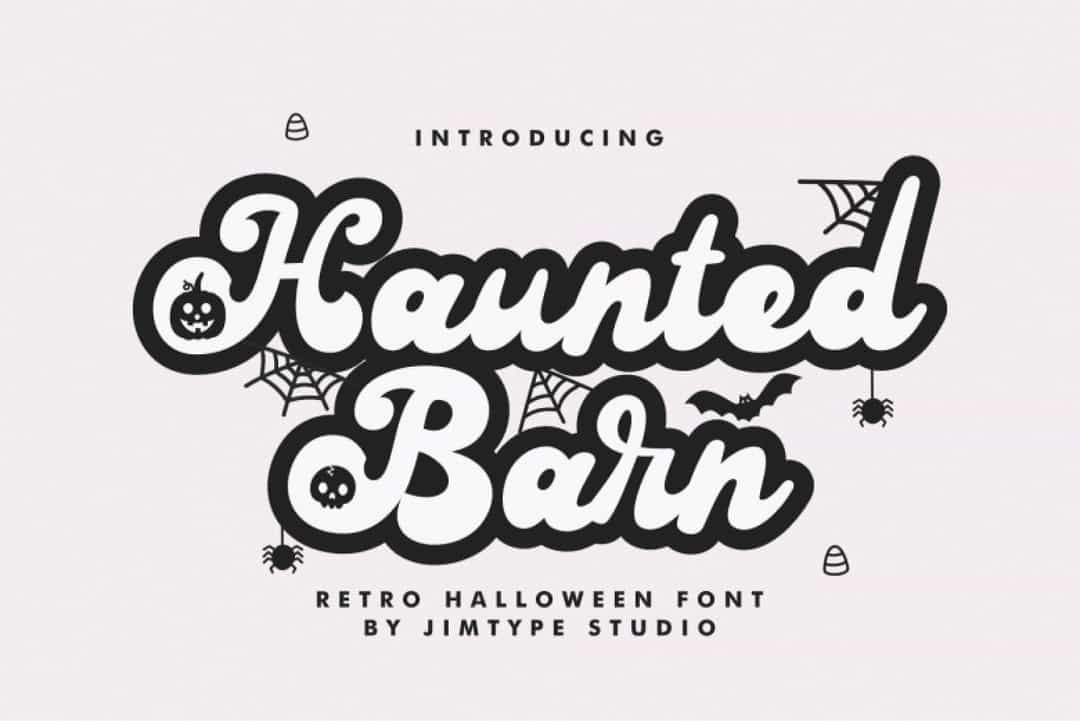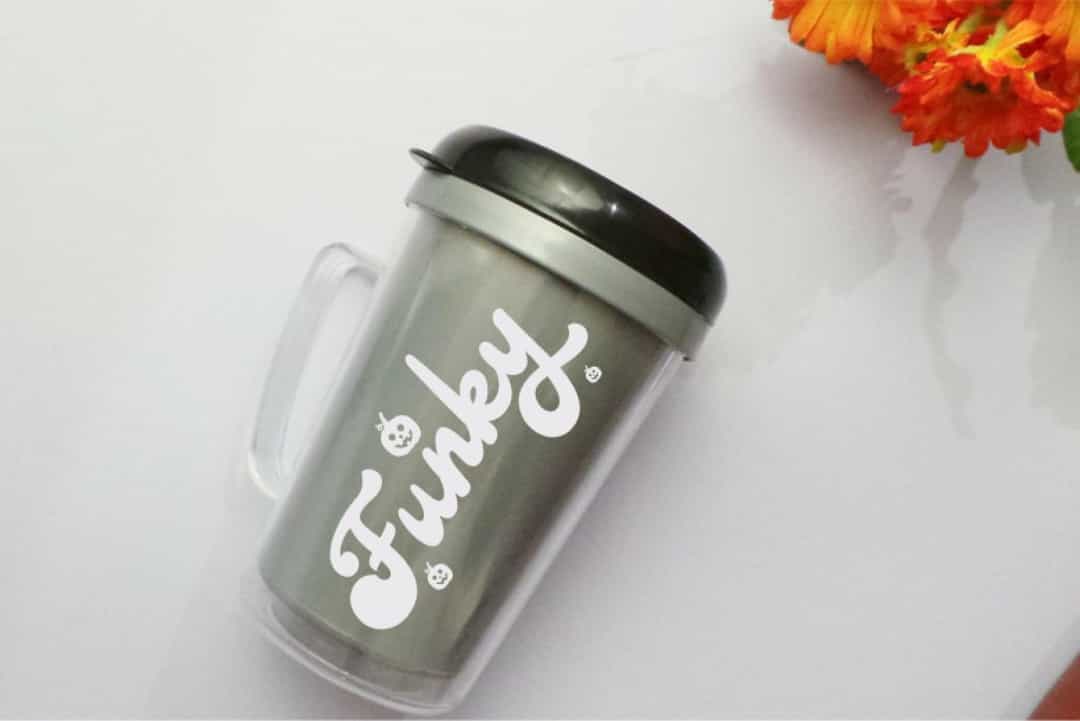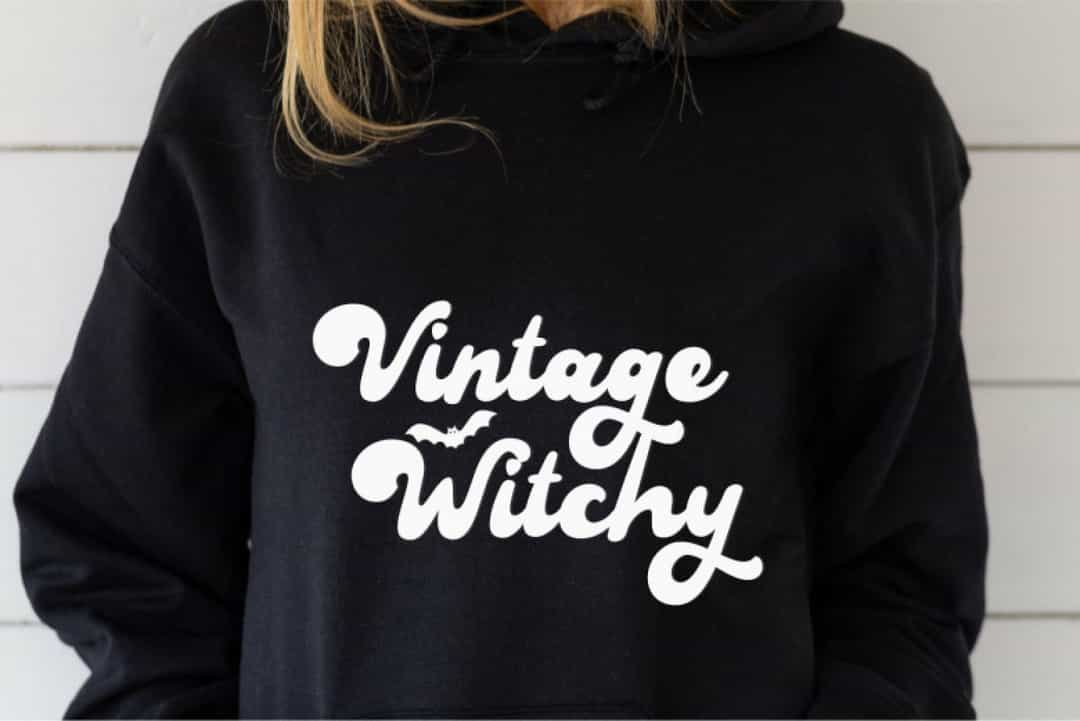
Welcome to the Haunted Barn Font Collection! Step back in time with our retro-inspired script font that perfectly encapsulates Halloween’s haunted nature, perfect for unleashing your creativity and adding some retro creepiness into your designs by using “Haunted Barn”.